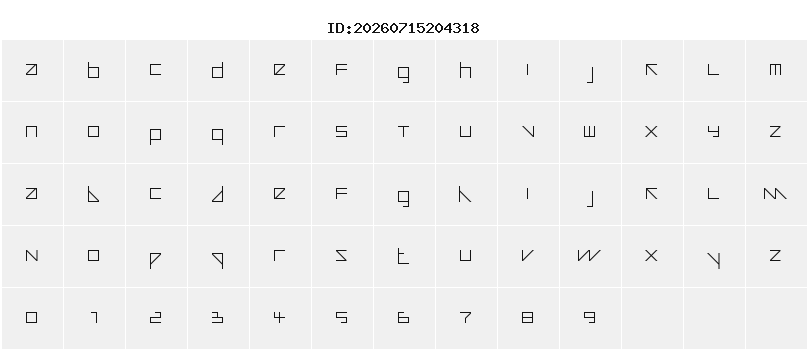
• Font Name: Auricom Regular
• Full Font Name: Auricom Regular
• Designer: Frédéric Rich
• Manufacturer: Frédéric Rich
About Auricom Regular.ttf
Auricom Regular.ttf is a modern, elegant sans-serif font designed for ultimate readability and visual harmony. Perfect for branding, headlines, web design, and print materials.